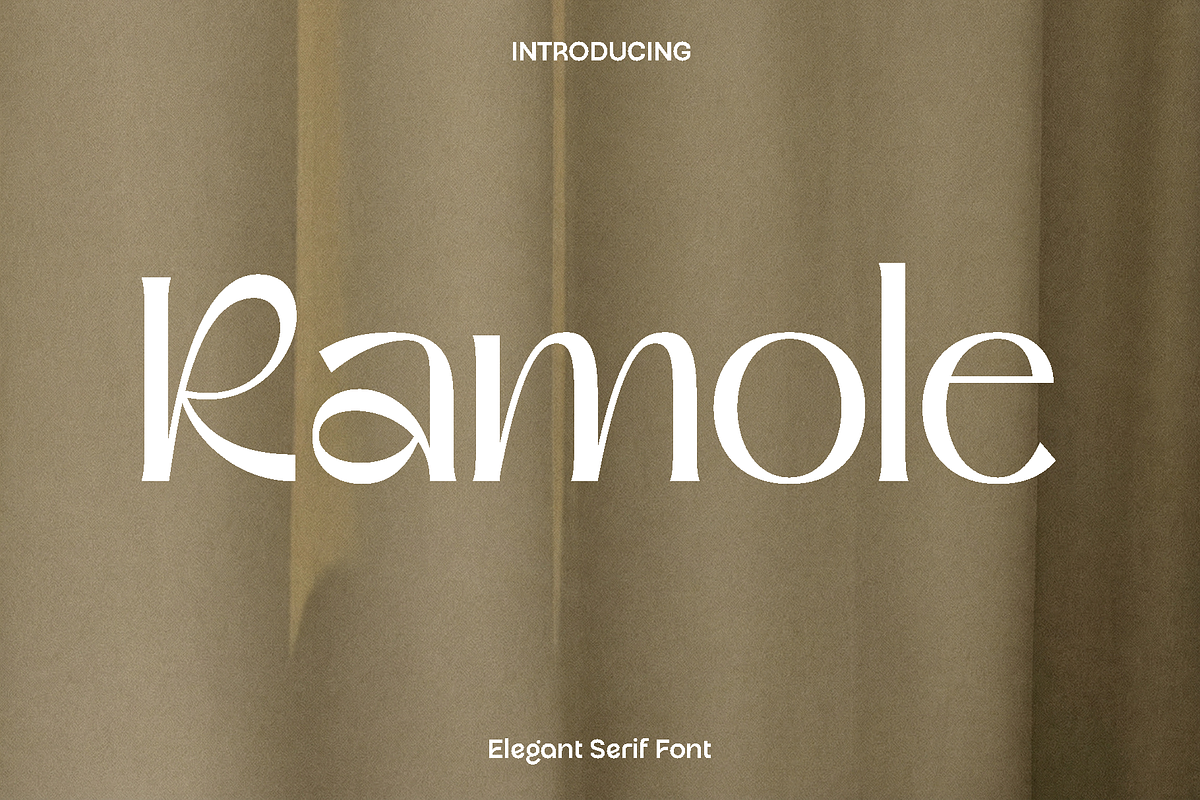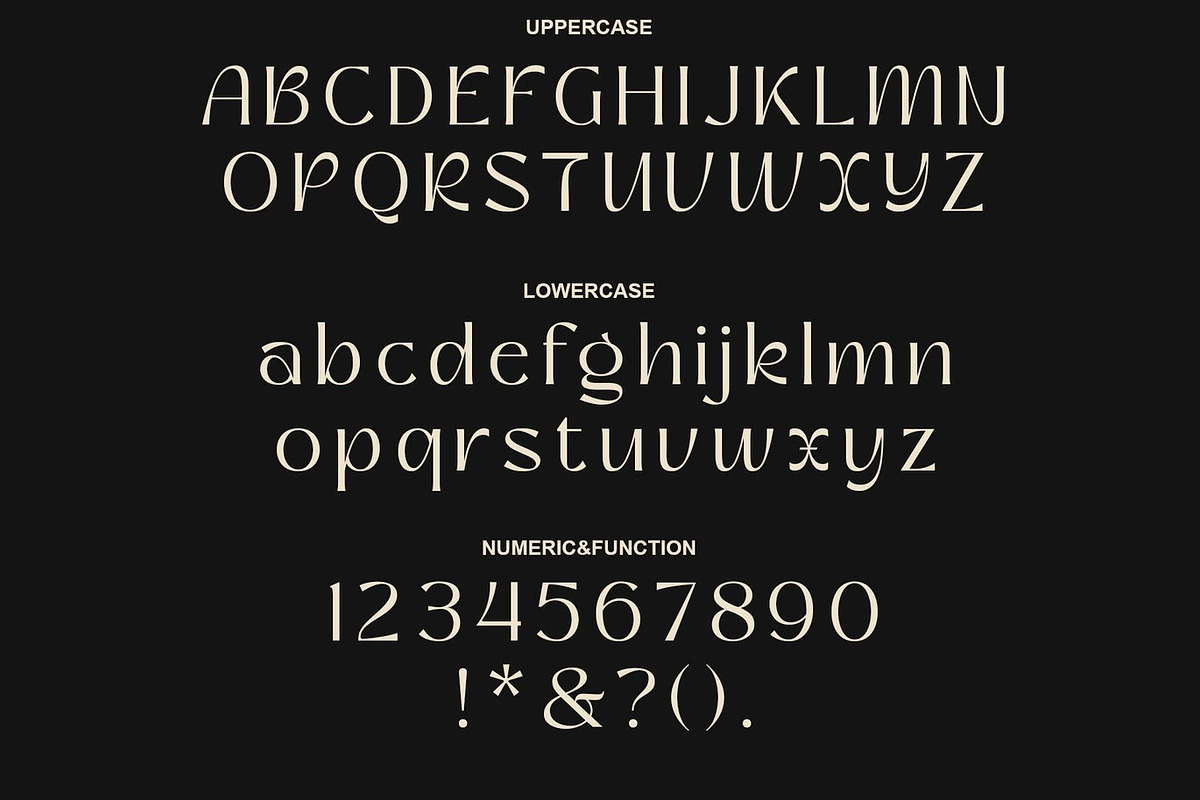
Ramole Elegant Serif
Ramole is a refined and versatile typeface created to bring balance, clarity, and understated elegance to modern design. Inspired by clean editorial typography and timeless visual harmony, Ramole combines graceful letterforms with a contemporary structure that feels both professional and creative. Its smooth rhythm and thoughtful proportions make every word look polished, giving your designs a confident and sophisticated presence.
Ramole shines across a wide range of creative projects. It works beautifully in books, magazines, blog headers, photography overlays, quotes, posters, advertisements, and branding materials. Whether you are designing a memorable logo, crafting a strong visual identity, or building stylish editorial layouts, Ramole provides readability while maintaining a distinctive character. Its subtle elegance allows it to support both minimal and expressive compositions without overpowering the overall design.
The typeface feels modern, clean, and dependable, making it suitable for both print and digital use. Designers looking for a font that delivers functionality with aesthetic charm will find Ramole a valuable addition to their collection. It enhances visual storytelling by adding structure, style, and a refined tone to every project.
Ramole Font Features:
• Uppercase and lowercase
• Numerals
• Functional design
• Multilingual support